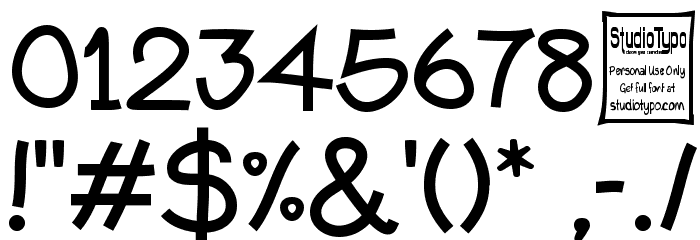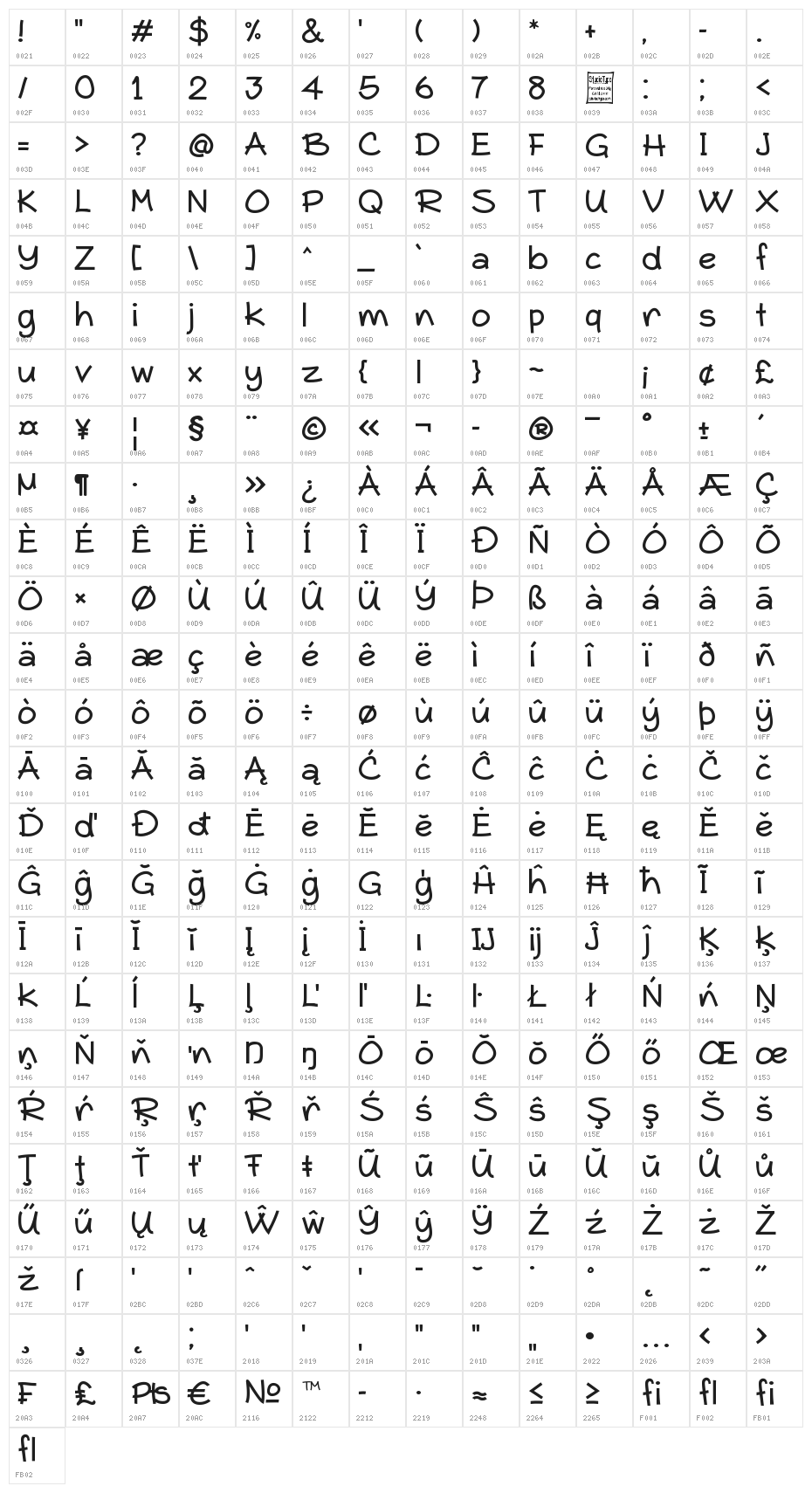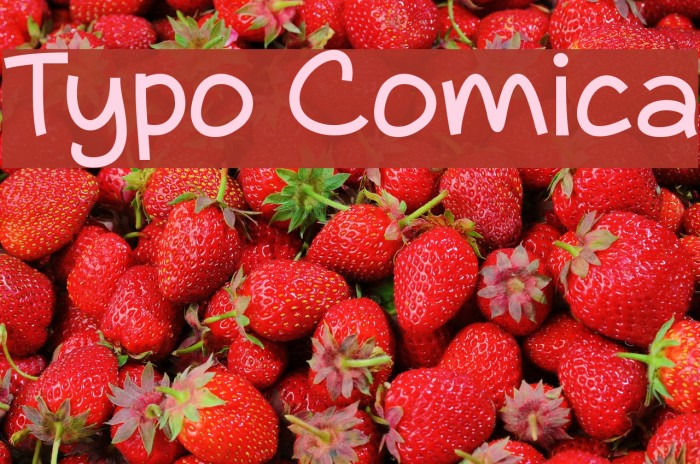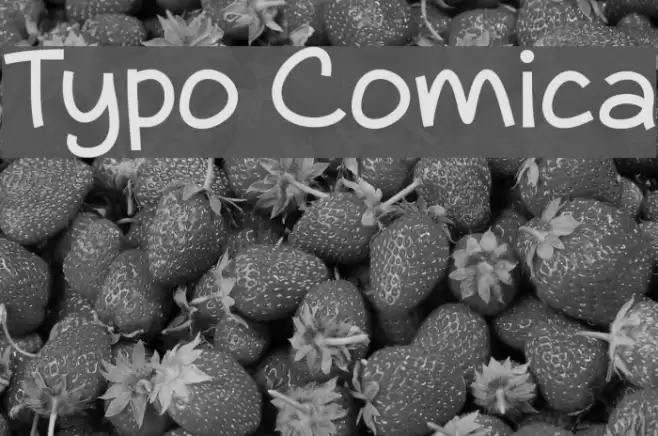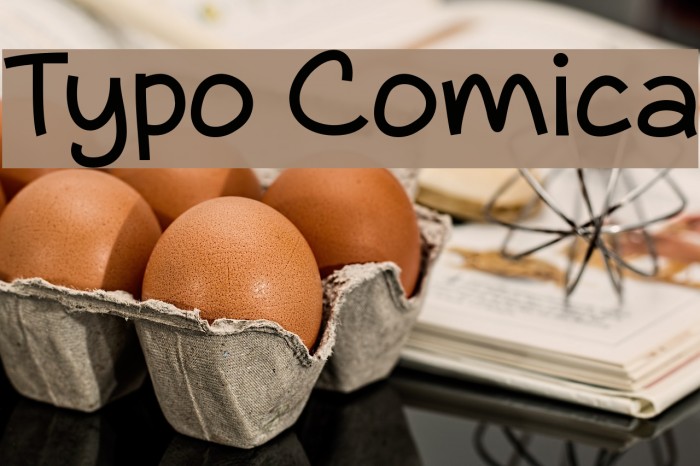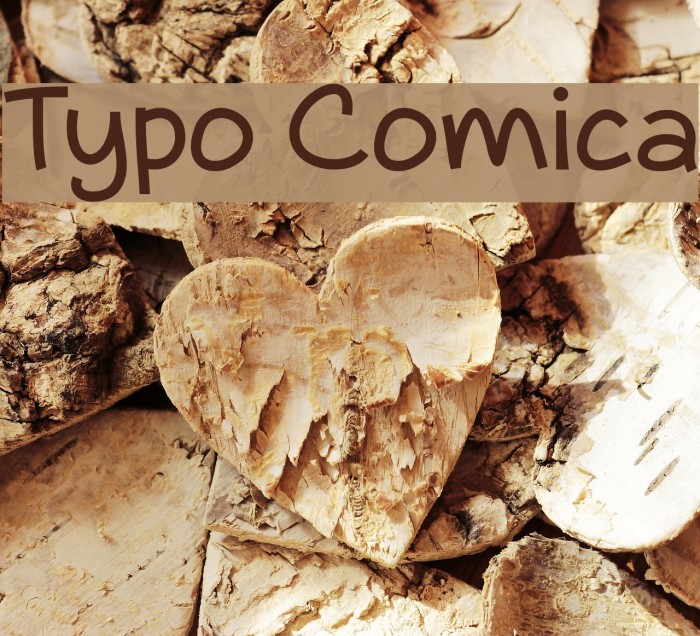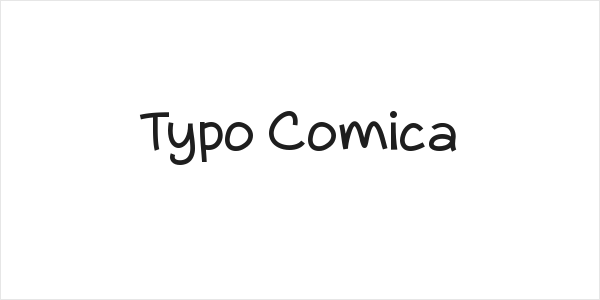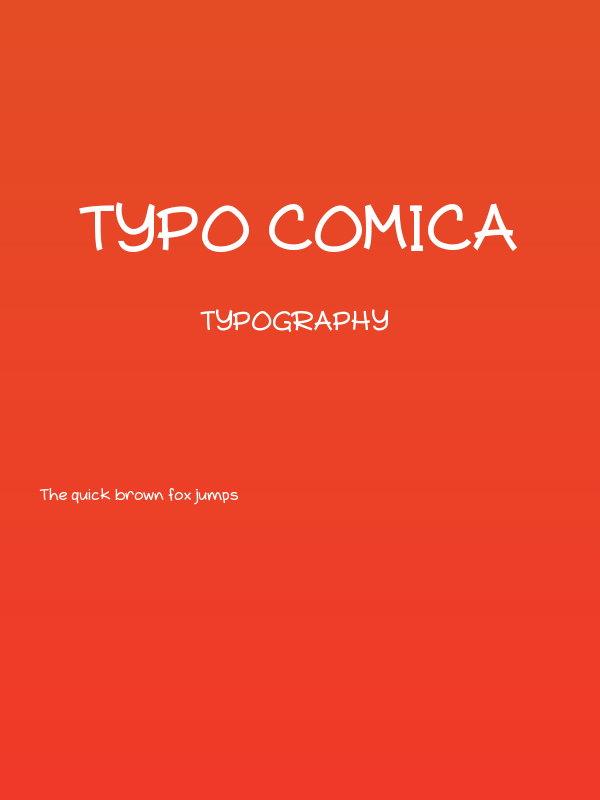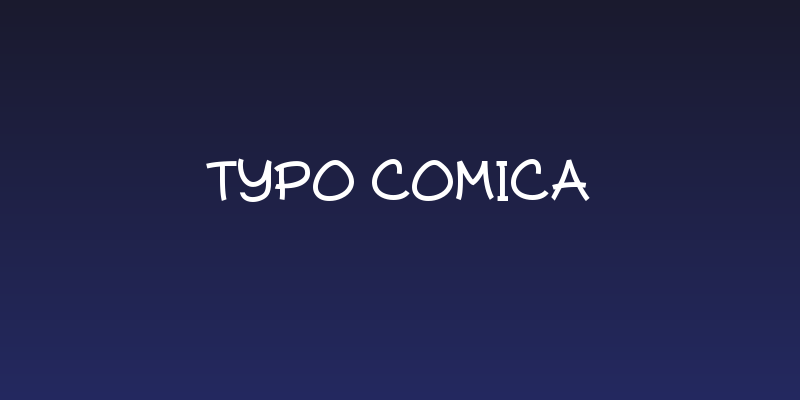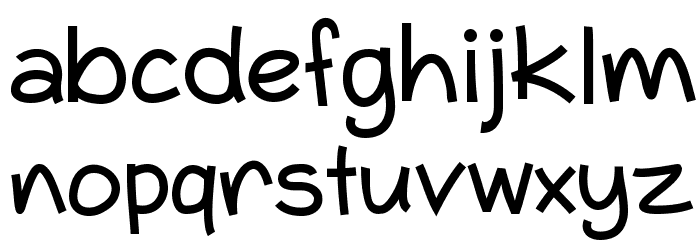
Typo Comica Font
Typo Comica Description
This playful and whimsical font features a hand-drawn, comic style that is both approachable and fun. The characters are slightly irregular, giving them a lively and animated appearance. The uppercase and lowercase letters maintain a consistent style, with rounded edges and a casual feel. The numerals and special characters complement the alphabet with the same quirky design, making it suitable for creative projects. The font's informal and friendly nature makes it ideal for children's books, comic strips, and playful branding.
| Use Case | Headlines, Logos, Informal text |
| Proposed Projects | Children's books, comic strips, playful branding, greeting cards, and informal invitations. |